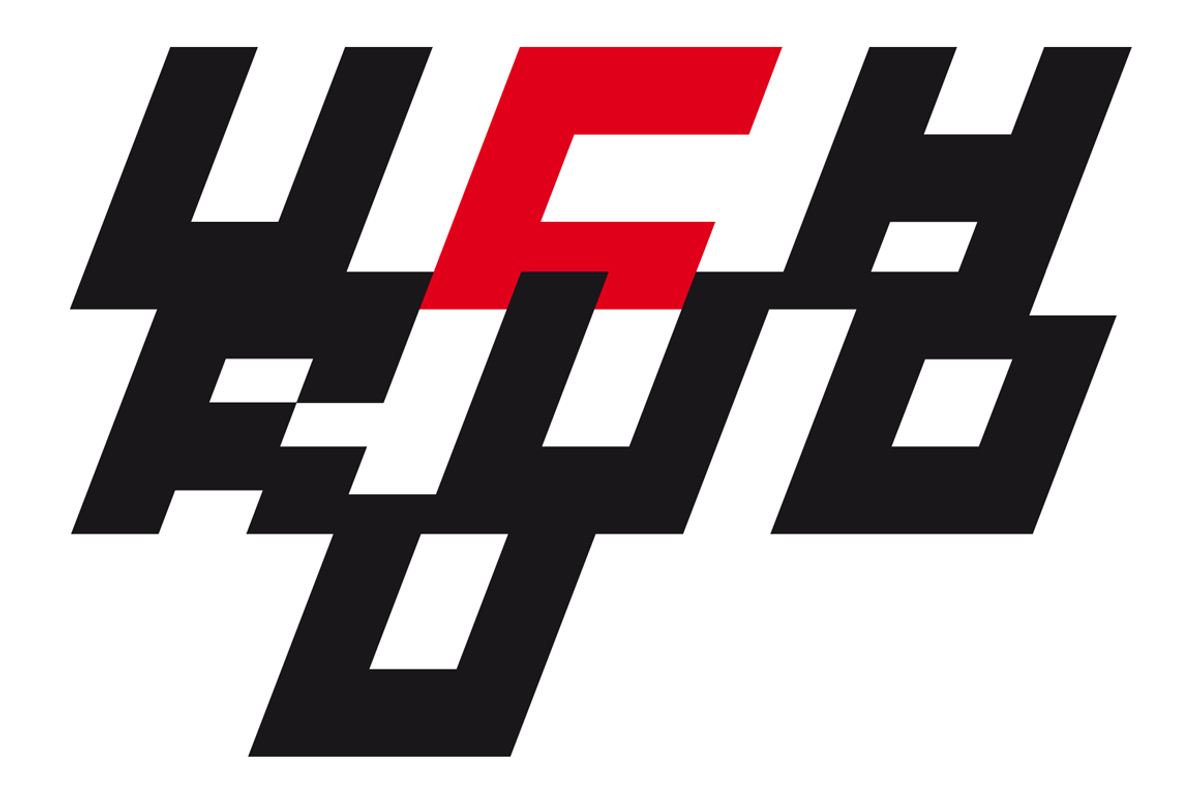
BAJT & BAJT Italic
BAJT and BAJT Italic are two geometric, pixel-art-style, minimalistic all-caps fonts. Each one contains uppercase letters, numbers and a large range of punctuation. Use for awesome display, illustrations, posters, logos, t-shirts, titles, and more..